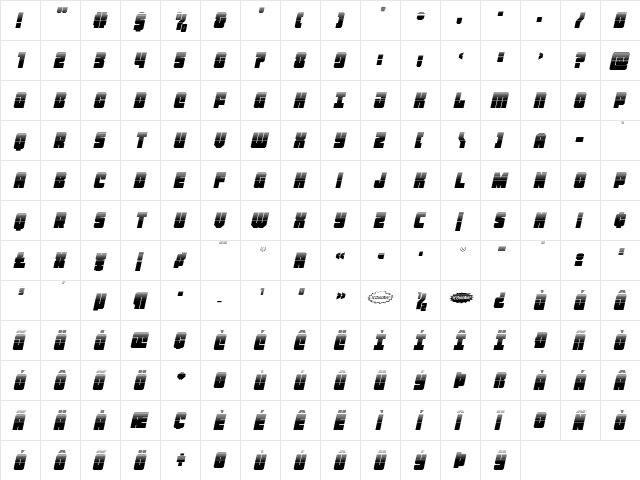
Homebase Halftone Italic Regular
Design Context for Homebase Halftone Italic Typeface
Homebase Halftone Italic is a composed and adaptable typeface that performs quietly and consistently across a wide range of design contexts. The dynamic lean of this cut emphasises speed and emphasis in any layout.